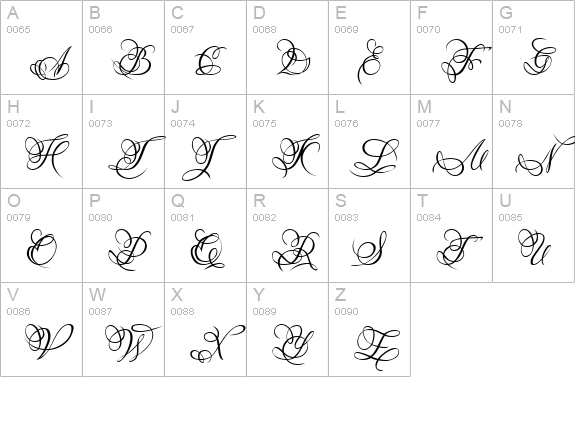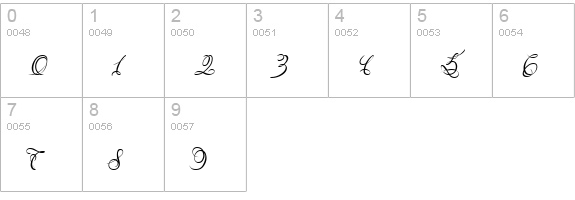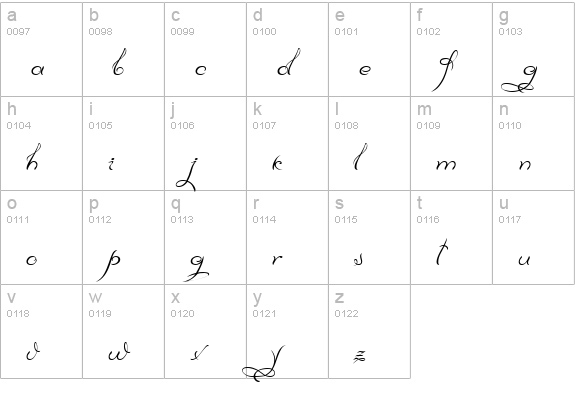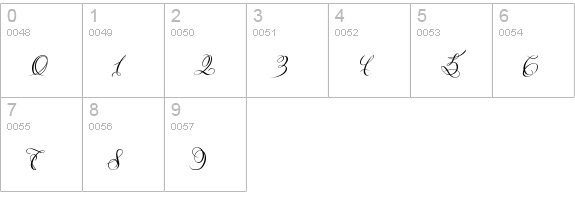
DianaCTT Font Details
DianaCTT font is a versatile and elegant typeface that exudes sophistication and style. Its sleek lines and modern design make it perfect for a wide range of projects, from branding to editorial design. The font features a unique blend of classic and contemporary elements, making it a standout choice for any design application. What sets DianaCTT font apart is not only its stunning aesthetic appeal but also the fact that it is available for free download at FontsMarket.com. This means that you can easily access this high-quality font without any cost, making it a valuable addition to your font library. Whether you're working on a logo, website, or print materials, DianaCTT font is sure to elevate your design and leave a lasting impression. Download it for free today and unlock the endless creative possibilities that this exquisite font has to offer.